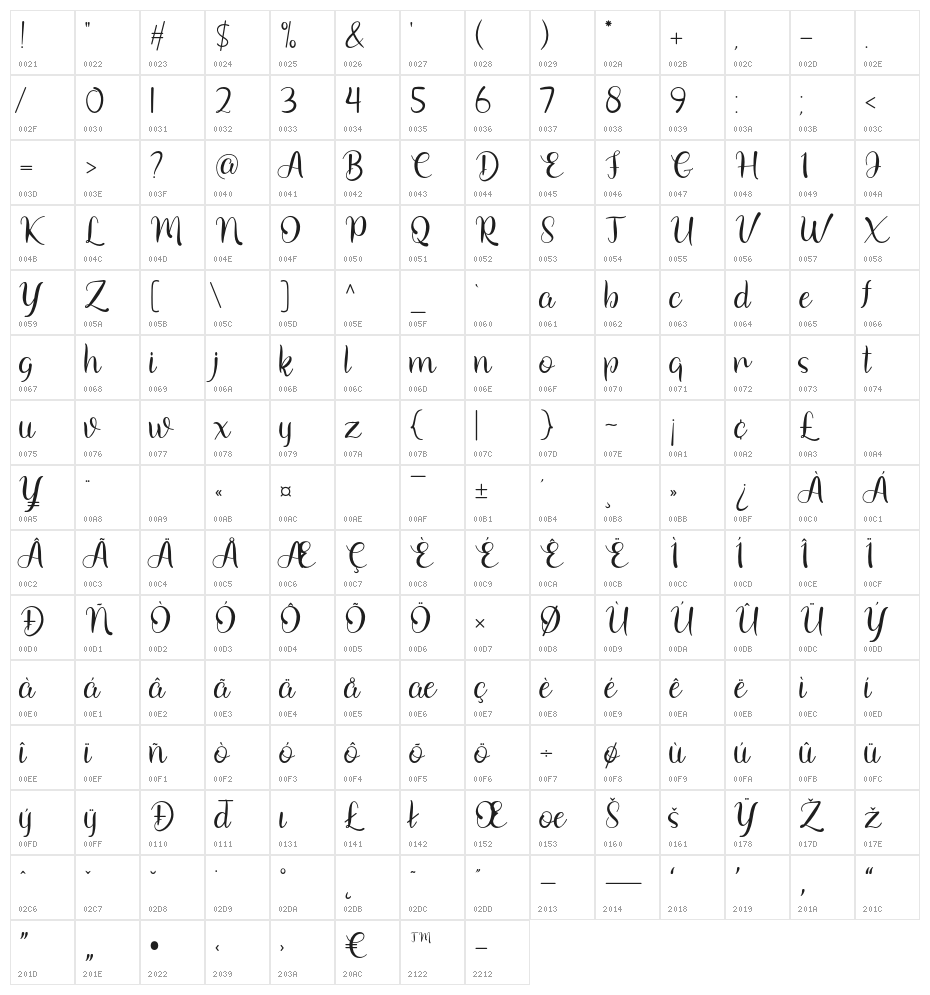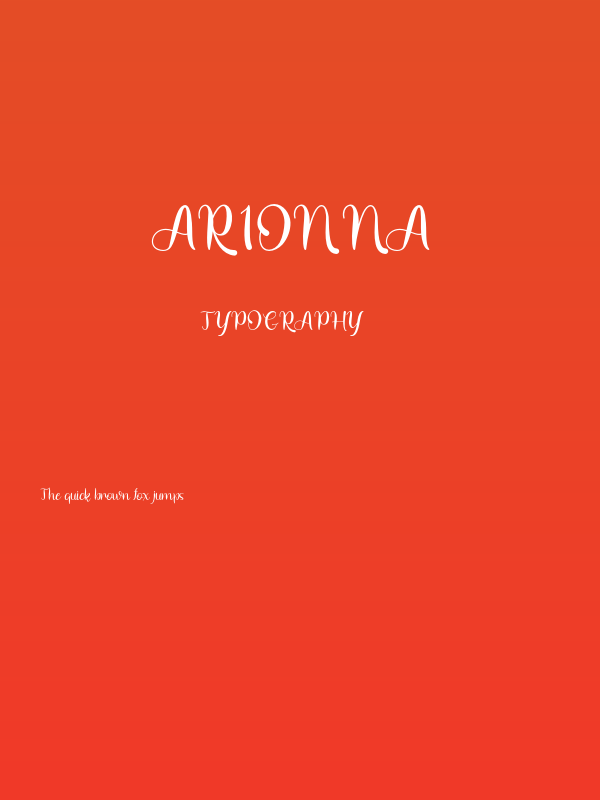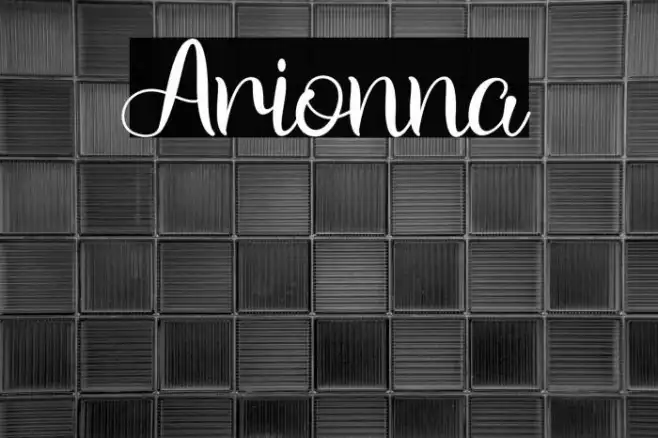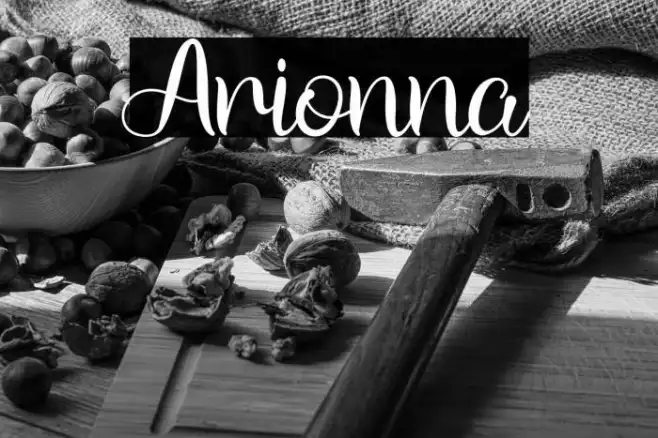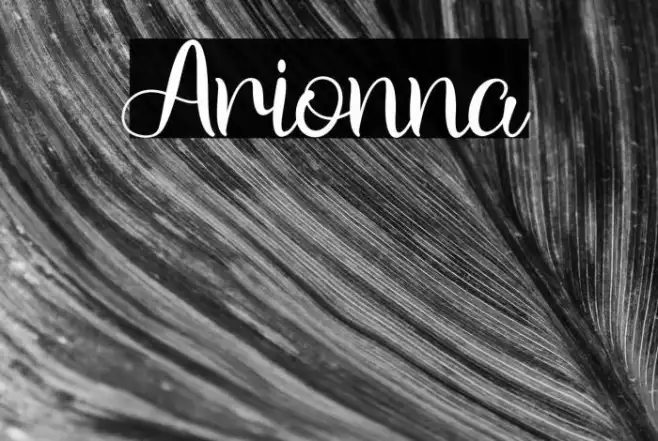
Arionna Font
Arionna Description
This font features a playful and elegant script style with a flowing, cursive design. The uppercase letters are characterized by their sweeping curves and loops, giving them a whimsical yet sophisticated appearance. The lowercase letters maintain a consistent flow, with smooth connections between characters, enhancing readability while preserving the artistic flair. The numerals are bold and slightly rounded, complementing the overall style. Special characters are creatively designed, adding a unique touch to the font. This font's balance of elegance and playfulness makes it versatile for various design projects.